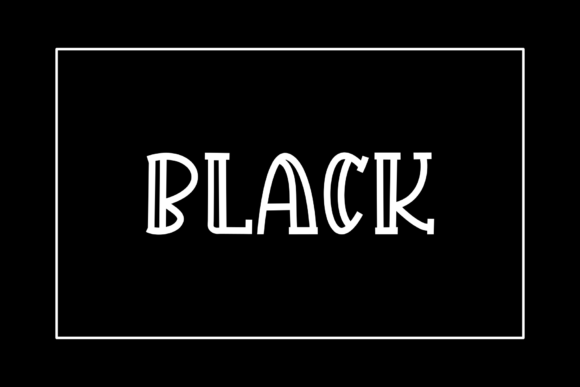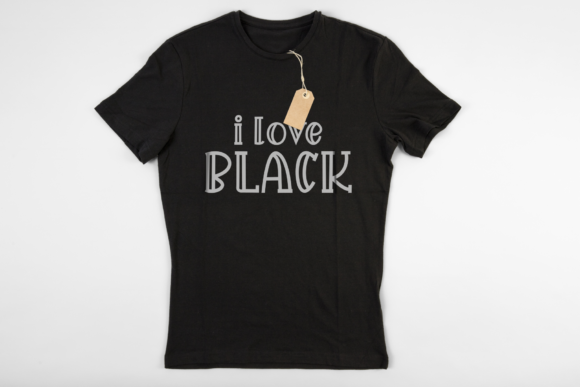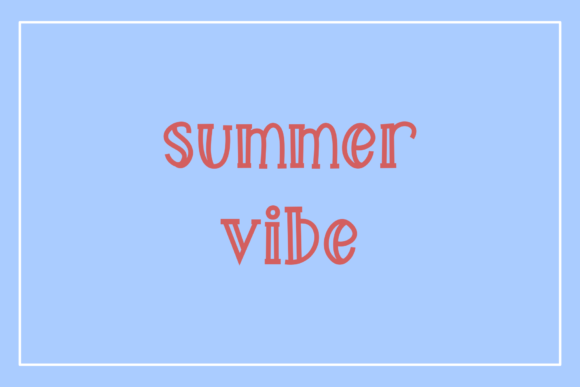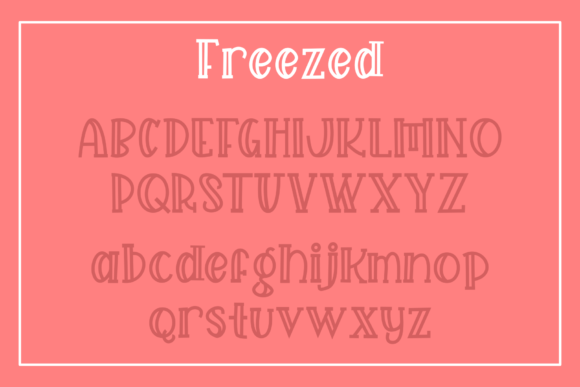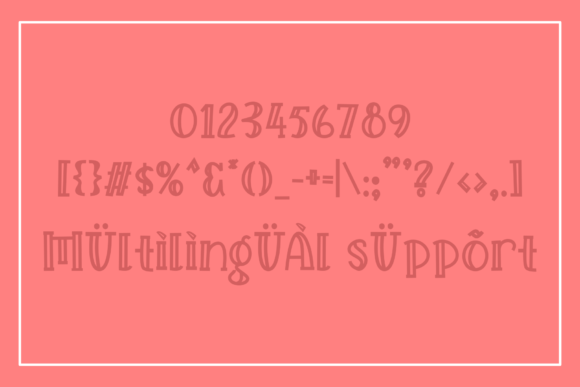
Discover the Charm of Freezed Font: A Friendly and Cute Inline Display Font
In the world of typography, fonts play a crucial role in conveying the tone and personality of a brand or design. If you’re a designer or crafter looking for a font that exudes friendliness and cuteness, look no further than Freezed Font. This delightful inline display font is perfect for a wide range of applications, from logos and stationery to social media posts and packaging.
The Characteristics of Freezed Font
Freezed Font is an inline display font that boasts a unique and charming aesthetic. Its friendly and cute appearance makes it an excellent choice for designers who want to add a touch of warmth and approachability to their designs. The font’s inline style gives it a distinctive look that sets it apart from other fonts, making it perfect for creating eye-catching and memorable designs.
What Makes Freezed Font So Versatile?
One of the standout features of Freezed Font is its versatility. This font can be used for a wide range of applications, including:
- Logos: Create a lasting impression with a custom logo that showcases your brand’s personality.
- Stationery: Add a touch of whimsy to your business cards, letterheads, and envelopes.
- Social Media Posts: Make your social media posts stand out with a font that’s sure to grab attention.
- Packaging: Add a personal touch to your product packaging and make it more memorable.
Why Designers and Crafters Love Freezed Font
Designers and crafters alike love Freezed Font for its unique combination of friendliness and cuteness. This font is perfect for:
- Branding: Create a consistent brand image that resonates with your target audience.
- DIY Projects: Add a personal touch to your DIY projects, such as handmade cards, gift tags, and more.
- Crafting: Use Freezed Font to create custom titles and headings for your craft projects, such as scrapbooking and journaling.
Tips for Using Freezed Font Effectively
To get the most out of Freezed Font, here are some tips to keep in mind:
- Use it sparingly: Freezed Font is a display font, so use it sparingly to create emphasis and visual interest.
- Pair it with other fonts: Experiment with pairing Freezed Font with other fonts to create a unique and visually appealing combination.
- Adjust the size: Play around with different font sizes to create visual hierarchy and emphasize important information.
| Font Name | Freezed Font |
| Author | Bold Point |
In conclusion, Freezed Font is a friendly and cute inline display font that’s perfect for designers and crafters looking to add a touch of warmth and approachability to their designs. With its versatility and unique aesthetic, Freezed Font is an excellent choice for a wide range of applications. Whether you’re creating logos, stationery, social media posts, or packaging, Freezed Font is sure to make your designs stand out.